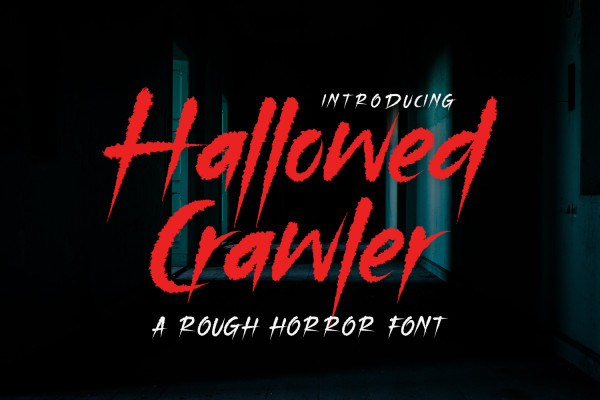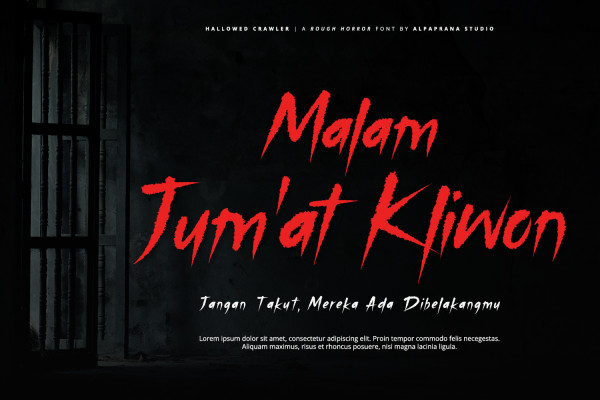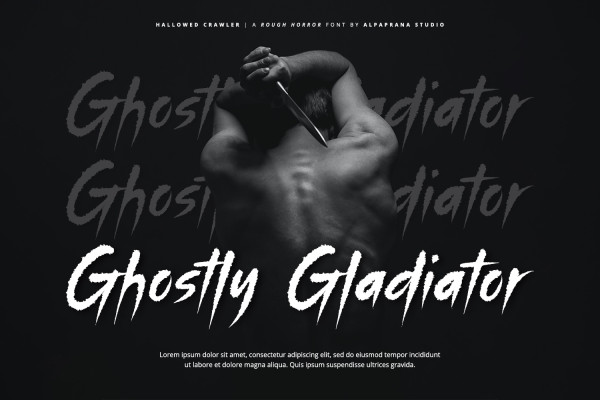
Hallowed Crawler Font
Hallowed Crawler Font is a rough horror font with modern feels. It will be perfectly used for Branding, Logo Design, Lettering, Logotype, Clothing, Poster, magazine, packaging, posters, shopping bags, t-shirts, book covers, photography, special events and other design project.